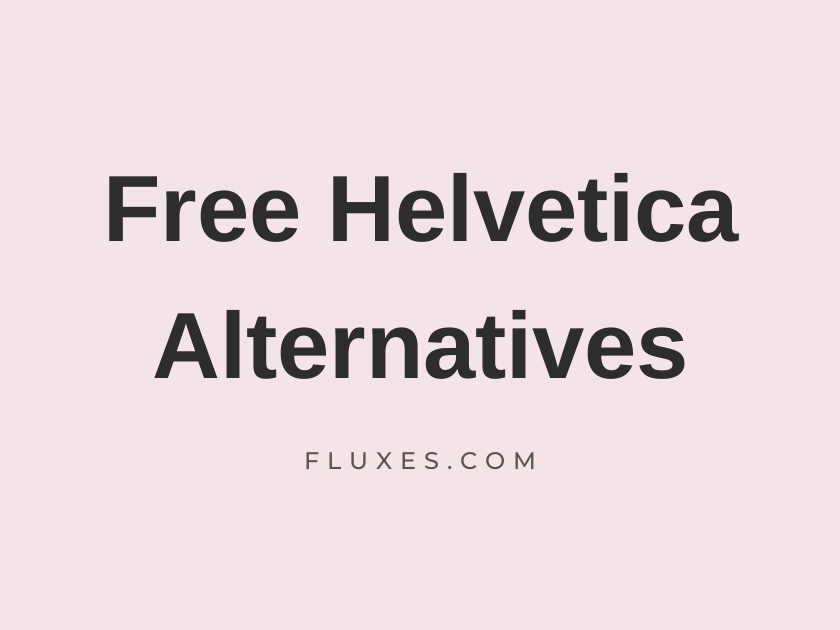
14 Best Free Fonts Alternatives to Helvetica
Helvetica has been the default answer to “just make it look clean” for seventy years, which is exactly the problem: it is everywhere, it is expensive to license properly for the web, and it is not even available as a native Google Fonts family. Designers searching for free Helvetica alternatives usually want the same thing, a neutral, confident grotesque that disappears into good typography rather than shouting for attention. The good news is that Google Fonts now hosts a strong set of grotesque and neo-grotesque sans serifs built for screens, several of them designed specifically to be metric-compatible or spiritually close to Helvetica and Arial.
Arimo
Clean, neutral type for interfaces and branding
Arimo
Arimo exists for exactly this purpose. It was built as a metrically compatible substitute for Arial, which itself is the font most people actually mean when they say Helvetica, so swapping it in rarely breaks a layout. The letterforms are a touch more open than Helvetica’s tight spacing, which makes it hold up better in body text on screens.
Simple, modern, and easy to read anywhere
Roboto is the closest thing Android has to a house grotesque, and its mix of geometric bones with slightly friendlier curves has made it one of the most downloaded families on Google Fonts. It reads a bit warmer than Helvetica but shares the same no-nonsense utility, which is why it turns up constantly in dashboards, apps, and product marketing.
Designed for screens, interfaces, and clarity
Inter was engineered from the start for user interfaces, with a tall x-height and careful spacing that keep it legible at the tiny sizes where Helvetica can turn to mush. It has effectively become the default sans for tech products, so leaning on it also signals a certain contemporary, software-native polish. Pair it with a serif like Lora for editorial layouts that need a break from pure sans-on-sans.
Corporate tone with a touch of character
Commissioned by IBM as its corporate voice, Plex Sans carries the same institutional confidence Helvetica built its reputation on, but with subtle quirks in the a and t that keep it from feeling generic. It is a smart pick for annual reports, technical documentation, and anywhere a brand wants to look serious without looking borrowed.
Straightforward text set for the modern web
Work Sans was optimized for text sizes on screen rather than for display headlines, so it earns its keep in paragraphs, forms, and long-form articles more than in giant hero type. Its proportions are close enough to Helvetica’s that many designers use it as a drop-in replacement without readers noticing the swap.
Bold statements, strong grotesque personality
Archivo leans slightly grittier and more industrial than Helvetica, with sturdier strokes that hold their shape at large display sizes. It is a good choice when a brand wants the neutrality of a grotesque but with a bit more visual weight and presence in headlines.
Accessible type built for government and civic sites
Built by the U.S. government’s design system, Public Sans was made to be as unassuming and legible as possible across every context, from forms to legal disclaimers. It will not win awards for personality, but that restraint is precisely what makes it a dependable Helvetica substitute for civic, institutional, and accessibility-first projects.
Rounded corners with a technical edge
Barlow takes its cues from the lettering on California license plates, giving it slightly rounded terminals that soften its otherwise mechanical, engineered feel. It sits somewhere between Helvetica’s neutrality and the more humanist grotesques, which makes it flexible across tech, transit, and lifestyle branding alike.
Geometric warmth for modern brand identities
Manrope was released as an open source variable font and quickly became popular for startup branding that wants Helvetica’s cleanliness with a slightly friendlier, more geometric feel. It shines in medium and semibold weights on marketing pages and pitch decks.
Distinctive grotesque for headlines and logos
Space Grotesk is where this list stops being neutral. Adapted from the monospaced Space Mono, it keeps some of that font’s quirky proportions while working as a proportional grotesque, giving headlines a slightly retro, technical character that plain Helvetica never had. Save it for display type and logotypes rather than dense paragraphs, where its personality can start to feel busy.
Friendly grotesque for approachable brand voices
Karla trades some of Helvetica’s cool detachment for a rounder, more approachable rhythm, making it a favorite for small businesses and editorial sites that still want a clean grotesque backbone. It stays crisp at body text sizes and pairs comfortably with heavier display faces.
Balanced, versatile type for everyday design
Hanken Grotesk is a workhorse in the truest sense, offering a wide weight range and steady, even proportions that make it easy to drop into almost any layout without a second thought. It is not trying to reinvent the grotesque, and that dependability is the point.
When in doubt, test at both extremes. A font that looks neutral and Helvetica-like at 16px can behave very differently at 72px, so preview headline and body sizes side by side before locking in a choice.
None of these fonts are trying to be a perfect clone of Helvetica, and that is the point. Each one solves the same problem, a clean and dependable grotesque, while adding something Helvetica cannot offer for free: open licensing, variable weights, and letterforms tuned for modern screens.